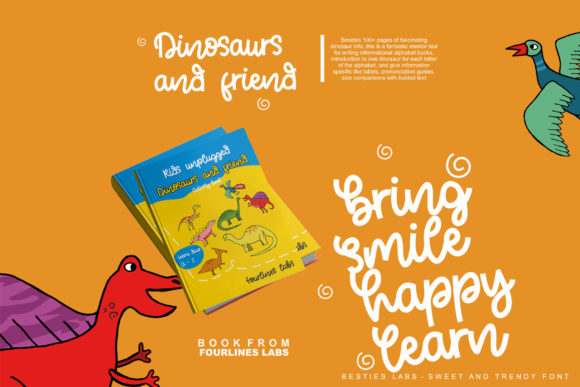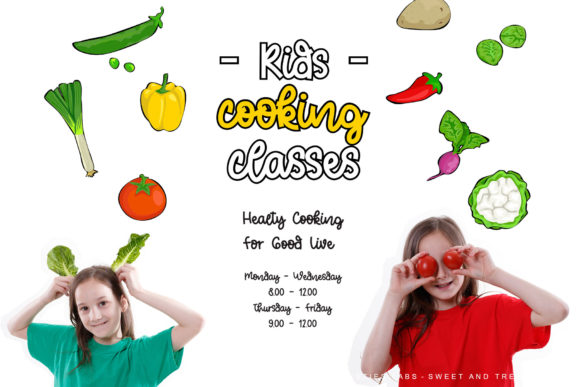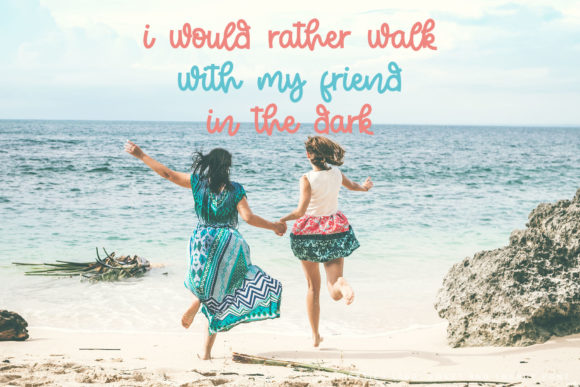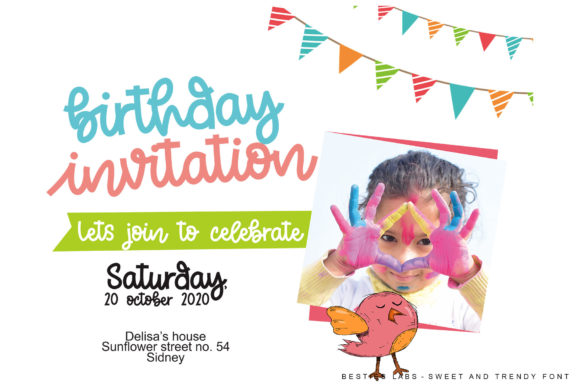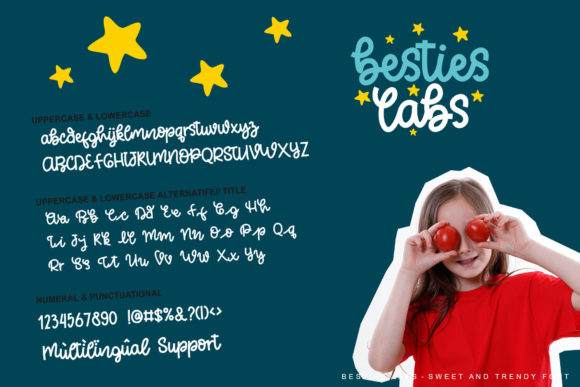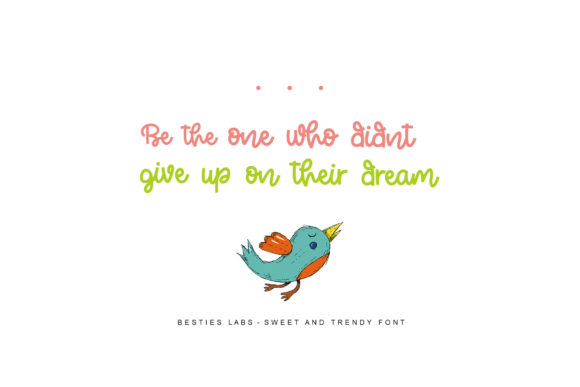
The Perfect Font for Your Creative Masterpiece
Have you ever been scrolling through your favorite design inspiration boards, and suddenly, you stumble upon a beautiful script font that makes your heart skip a beat? For many designers, that moment is like finding a long-lost treasure – it sparks creativity and sets the tone for an entire project. For us, that moment led us to discover the enchanting Besties Labs Font.
Besties Labs Font is a modern script font that exudes sweetness and trendiness, making it perfect for a wide range of creative projects. From wedding invitations to social media posts, this versatile font is sure to elevate your designs and leave a lasting impression. What’s more, its incredibly modern feel makes it a valuable asset for designers looking to stay ahead of the curve.
Besties Labs Font Key Features
- Unique Characteristics: The Besties Labs Font features a unique blend of modern and playful design elements, including custom letterforms, ornaments, and ligatures.
Review of Besties Labs Font
Overall, I’m impressed with the Besties Labs Font. ✨ The font’s playful and quirky nature makes it perfect for creative projects that require a lot of character.
- Unique character set: The font’s unconventional letterforms add a touch of whimsy to any design.
- High legibility: Despite its playful nature, the font is still easy to read, making it suitable for body text.
- Good for branding: The font’s distinctive style makes it perfect for creating memorable brand identities.
- Not ideal for formal projects: The font’s quirky nature may not be suitable for formal or professional projects.
- May require custom settings: Depending on the project, you may need to adjust the font’s settings to achieve the desired look.
- Not as extensive as other font libraries: The font library is relatively small, which may limit its versatility.
- ⚠️ Not suitable for small text: The font’s unique character set can make small text difficult to read.
Overall, I would recommend the Besties Labs Font for creative projects that require a unique and playful touch. While it has its limitations, the font’s distinctive style and high legibility make it a great addition to any designer’s toolkit.
Besties Labs Font is ideal for use in creative projects, such as branding, packaging, and advertising materials. To get the most out of it, try using it in combination with bold and italic text to create a visually appealing contrast. Common use cases include:
– Packaging and label design
– Advertising and marketing materials